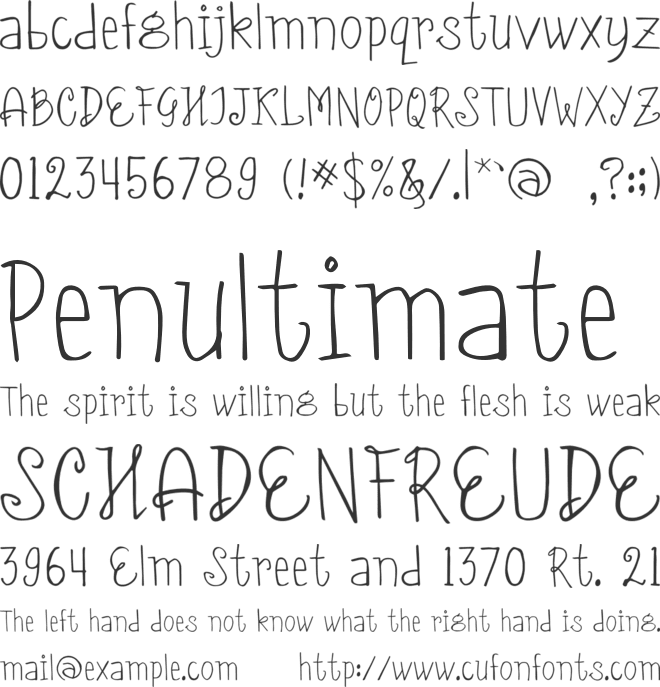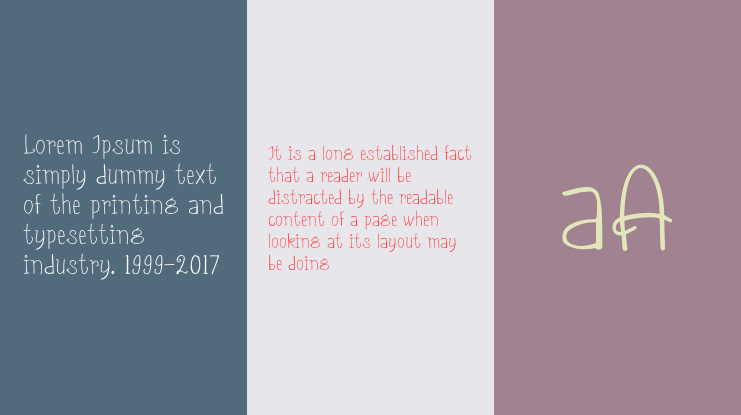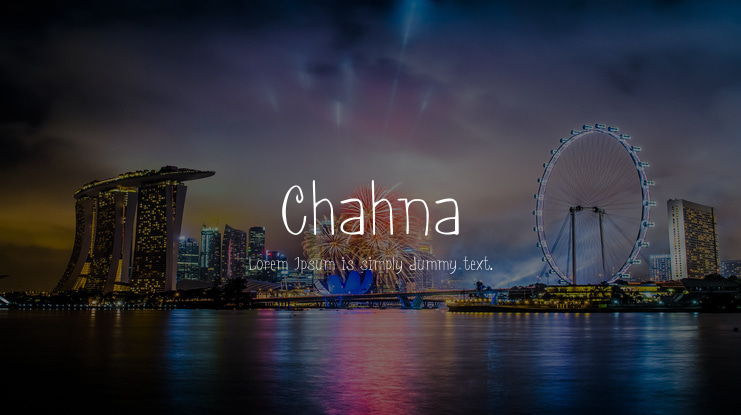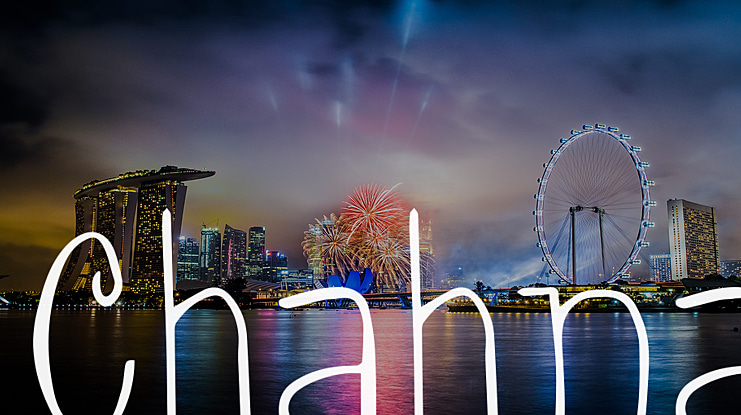
Chahna Font Family
Introducing Chahna, a cool and fresh handwritten font. Designed to suit the designer's needs of a font that can bring joyful feelings of children.
You can use it on various projects such as invitation cards, children books, restaurant menus, etc. It comes with both regular and bold versions.